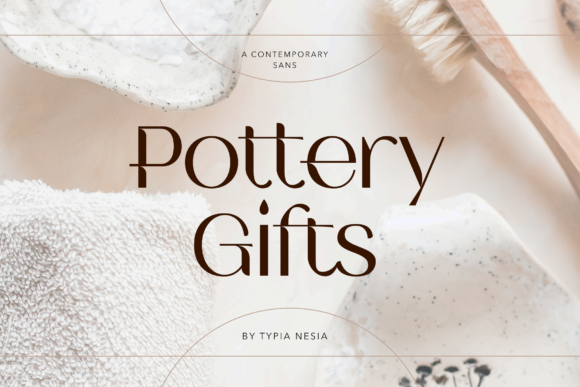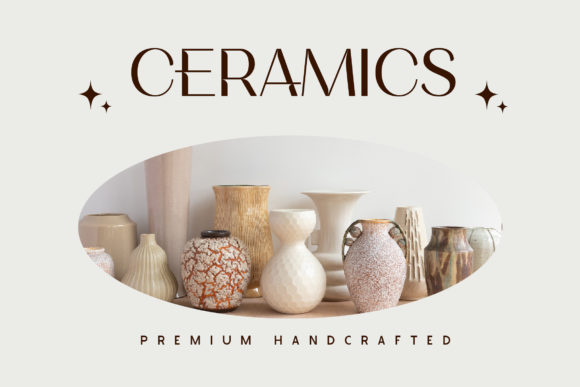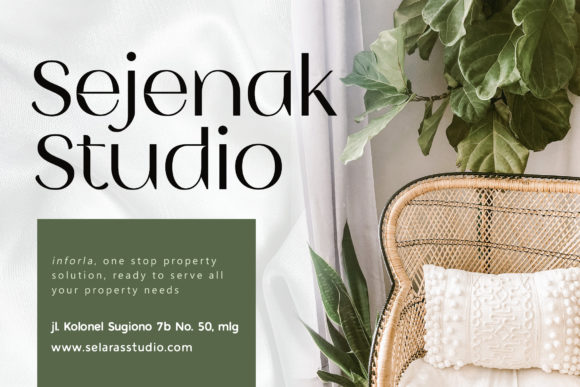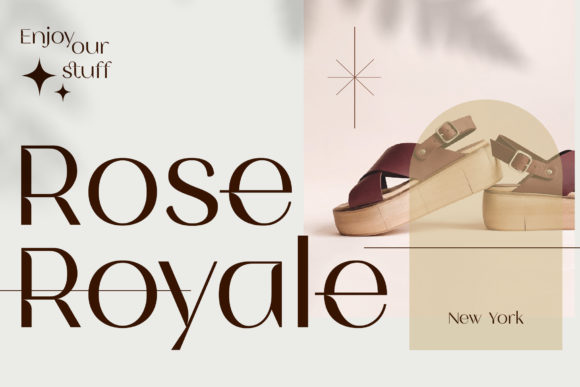
Pottery Gifts Font: Elegant Sans Serif for Branding & Pinterest Design
About the Pottery Gifts Font
The wait is over! The incredible Pottery Gifts Font is now available for your design toolkit. Pottery Gifts is a particularly elegant, thin lettered and delicate sans serif font. This font was particularly crafted for those who need a beautiful and refreshing look to their designs.
Pottery Gifts excels in applications requiring a delicate and refined aesthetic. It’s ideal for short headlines, logos, and branding elements where elegance is paramount. Consider using it for packaging design, particularly for high-end products or those with a handcrafted feel. However, its thin strokes make it unsuitable for body text or situations needing high readability at smaller sizes. Avoid using it for UI elements or long paragraphs.
Its inherent elegance pairs well with warmer serif fonts like Garamond or a more modern geometric sans-serif like Futura for a balanced contrast. A script font with a similar level of refinement, such as a calligraphic style, could also create a luxurious feel. Avoid pairing it with overly bold or playful fonts which would clash with its delicate nature.
The font projects a sophisticated and understated personality, best suited for brands that value quality craftsmanship and a sense of timeless style. Think artisanal goods, high-end fashion, or curated lifestyle brands.
Pottery Gifts Font Usage Examples
Pottery Gifts Font Example